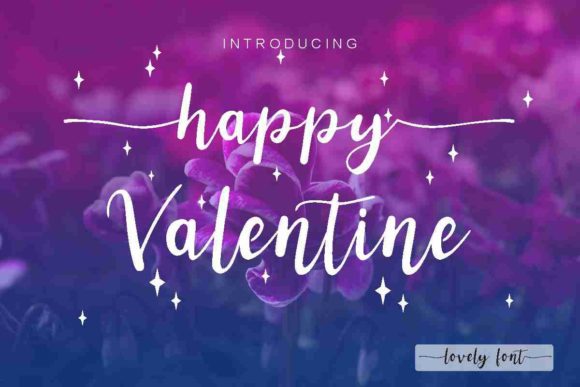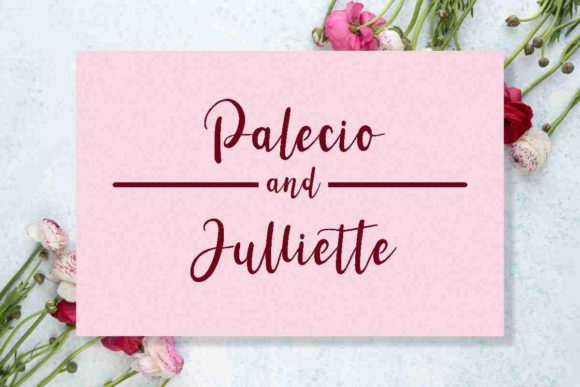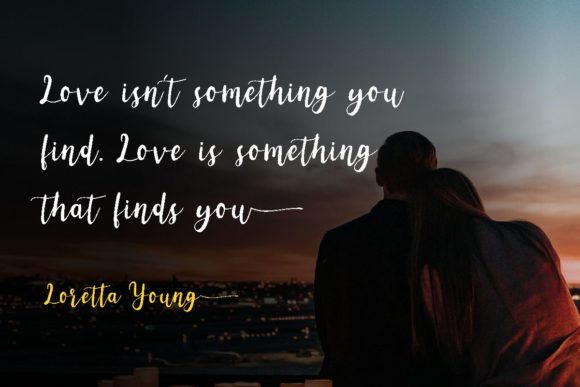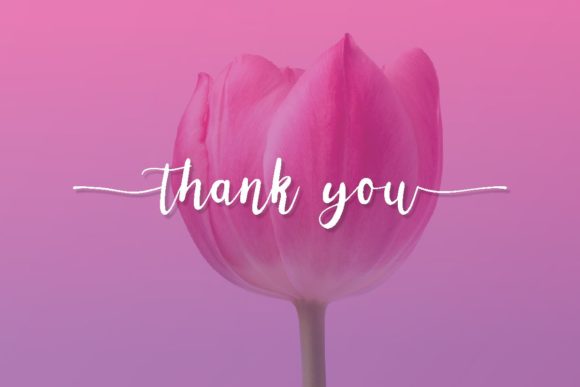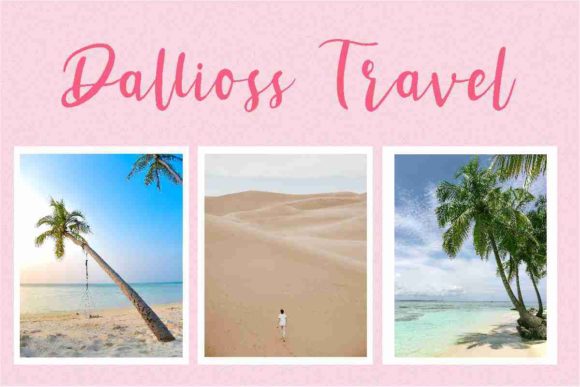
Happy Valentine Font
“Happy Valentine” sounds like an extraordinary and one-of-a-kind handwritten font that can add a touch of uniqueness and creativity to your designs. With its masterful design, this font is sure to become a true favorite, elevating each of your creative ideas to the highest level.
By using “Happy Valentine” in your projects, you can achieve a sense of originality and charm. Its handwritten style adds a personal and authentic touch, making your designs feel more heartfelt and special.
This font’s uniqueness shines through, making it stand out in various design contexts. Whether you’re working on Valentine’s Day themed projects, greeting cards, love letters, or any other creative endeavor, “Happy Valentine” can bring a distinctive and captivating flair.
With “Happy Valentine,” you have the opportunity to explore different font sizes, colors, and placements to create visually stunning and engaging compositions.
The masterful design of “Happy Valentine” ensures that it becomes a favorite among your creative assets, being the font that brings out the best in your ideas and designs.
Incorporate “Happy Valentine” into your projects, and you’ll witness how it takes your creative vision to new heights, turning your designs into extraordinary and captivating works of art.
While embracing the uniqueness of “Happy Valentine,” remember to maintain readability and legibility. Proper spacing and alignment between letters ensure that the text remains clear and easy to read, preserving the font’s overall charm and originality.
In conclusion, “Happy Valentine” is an incredibly unique handwritten font that can elevate your creative ideas to the highest level. Embrace its masterful design and let it be the font that brings a touch of originality and charm to your designs. With “Happy Valentine,” your creations will stand out, leaving a lasting impression on your audience and making them truly special and cherished.